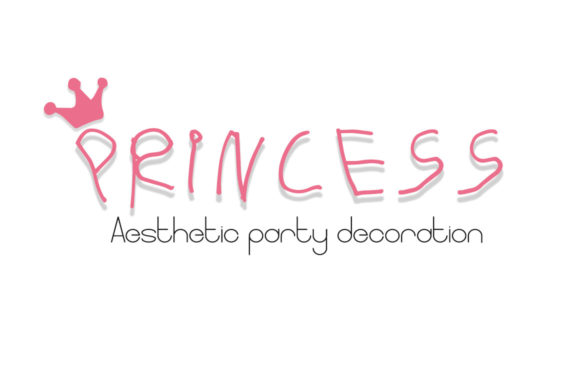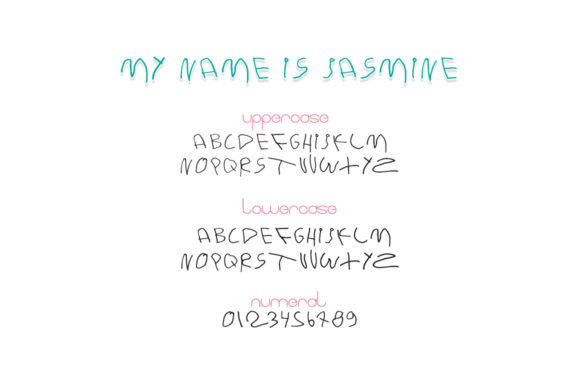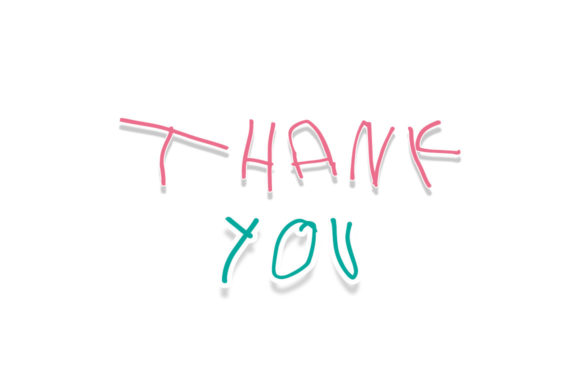
My Name is Jasmine Font
My Name is Jasmine is a cute and brittle handwritten font. It looks as if it was the handwriting of a child, and as a result, this font will be the perfect choice for writing letters to Santa or adding a touch of innocence to your creations.